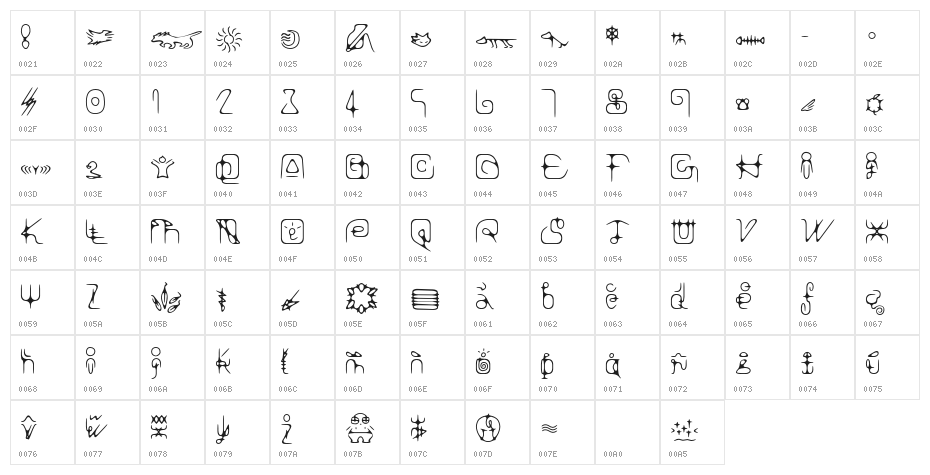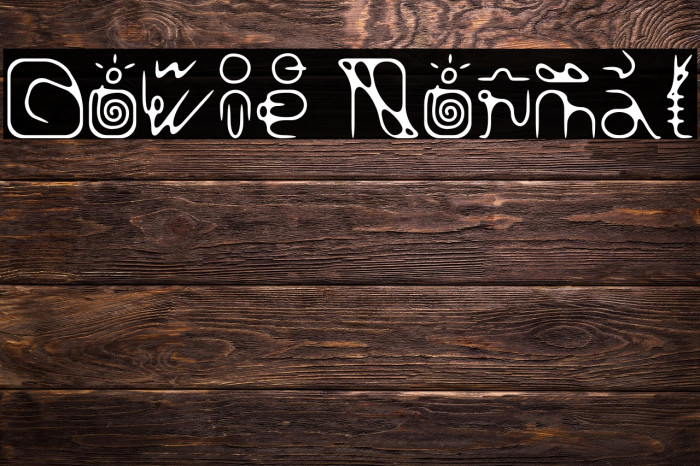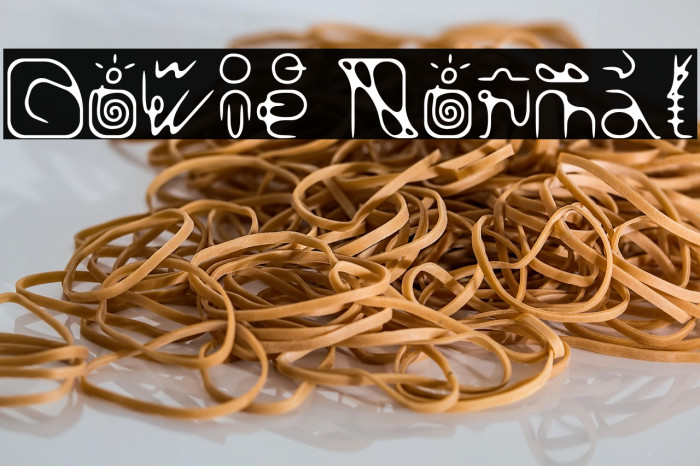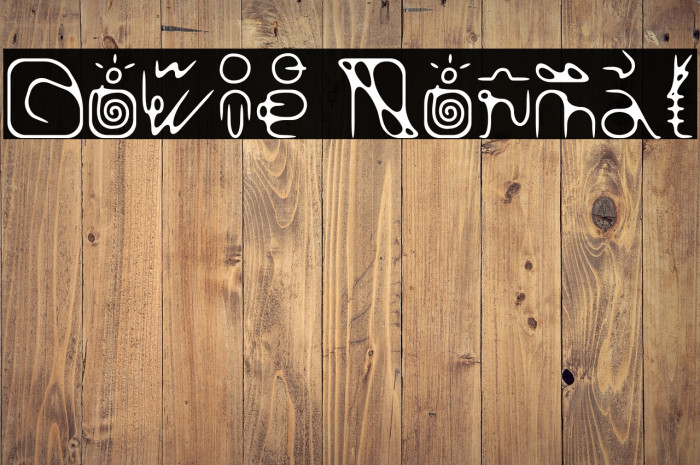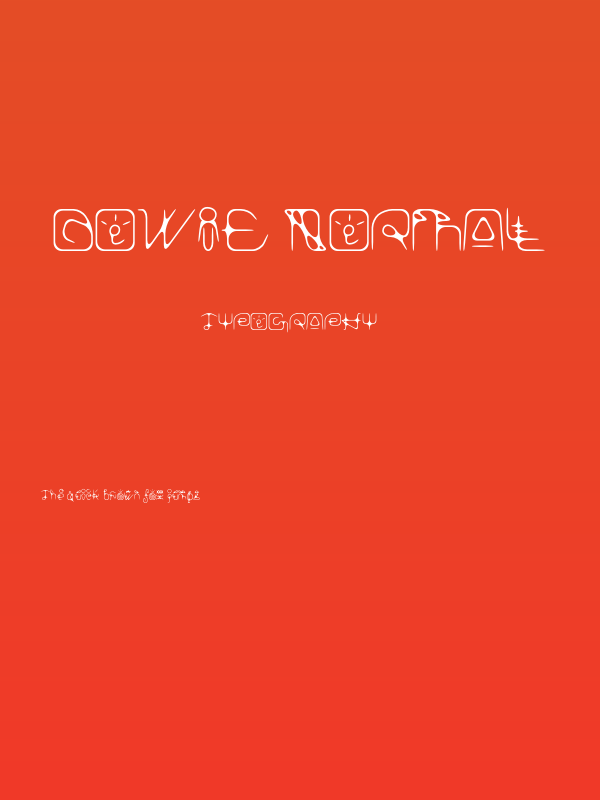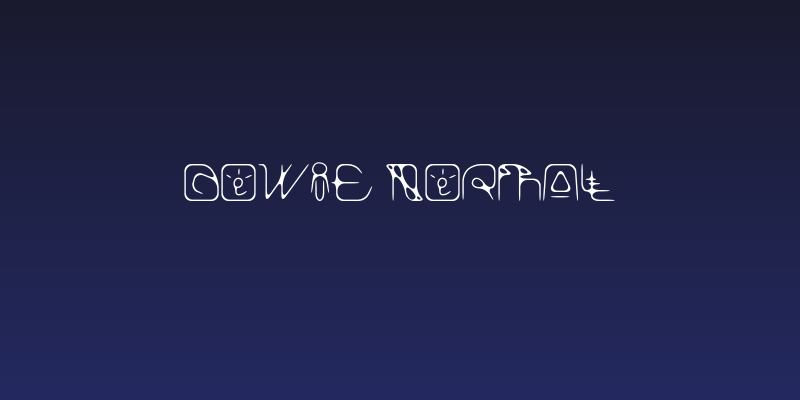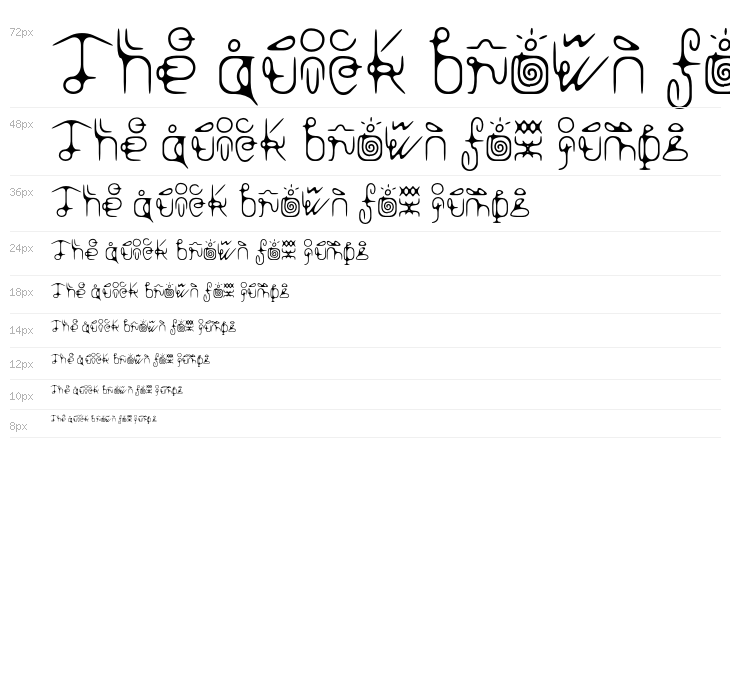
Dowie Normal Font
Dowie Normal Description
This font features a highly decorative and artistic style, characterized by its unique and abstract letterforms. Each character is designed with intricate details, incorporating elements that resemble organic shapes and mystical symbols. The uppercase and lowercase letters maintain a consistent theme, with curves and lines that create a sense of movement and fluidity. Numbers and special characters follow the same artistic approach, making the font suitable for creative and unconventional design projects. The overall appearance is both whimsical and mysterious, offering a distinct visual appeal.
| Use Case | Logos, Posters, Artistic Projects |
| Proposed Projects | Ideal for fantasy-themed projects, artistic posters, unique branding, and creative invitations. |